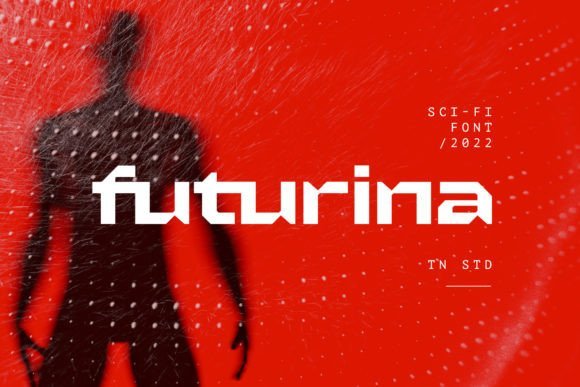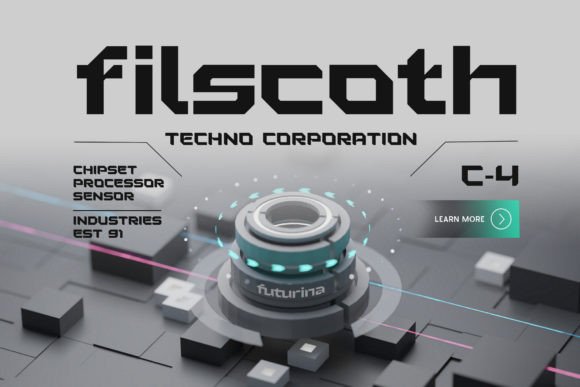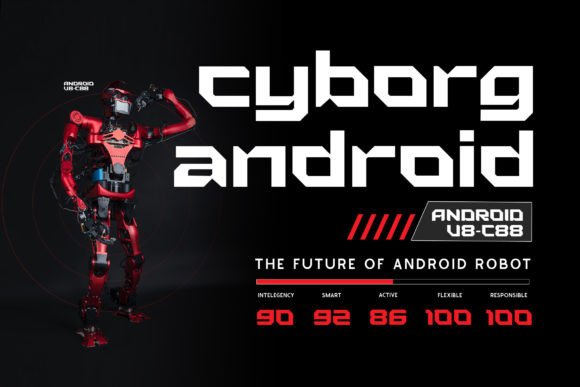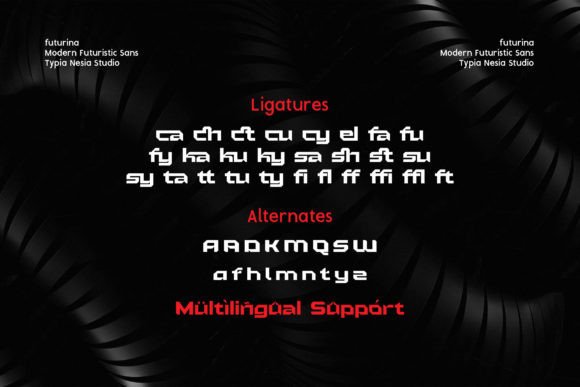
Unlocking the Future of Design with Futurina Font
Have you ever stared at a blank page, surrounded by a sea of possibilities, and thought, “This is the moment where creativity takes over and something truly amazing is born?” That’s exactly what happened to us when we first laid eyes on the Futurina Font. Its bold, black display sans serif design is a perfect blend of futuristic and sci-fi elements, making it the ultimate game-changer for designers.
Designed to take your projects to the next level, the Futurina Font is a versatile tool that can be used for everything from logo branding to editorial design, export design, and even 80s retro design. Whether you’re working on a game, creating a music poster, or designing a website, this font is sure to elevate your work and leave a lasting impression.
What sets the Futurina Font apart is its ability to add a touch of modernity and sophistication to any design. With its wide range of applications, it’s no wonder why designers are flocking to this font to give their projects a unique edge.
Futurina Font Key Features
- Font Size and Style: Futurina Font comes in 5 different weights (Thin, Light, Regular, Medium, and Bold) and 2 styles (Regular and Italic), providing ample options for designers to achieve the desired visual effect.
- Unique Characteristics: Futurina Font features a futuristic and sleek design, with a focus on clean lines, geometric shapes, and a sense of dynamism, making it ideal for science fiction, technology, and futuristic-themed projects.
Futurina Font Review
Futurina is a futuristic sans-serif font that’s sure to catch attention. I love the clean lines and geometric shapes that give it a truly space-age feel. ✨ The font is highly legible, making it perfect for digital applications and interfaces.
Here are some specific features that I think work well:
- Wide range of weights and styles, from thin to bold
- Excellent readability on screens and paper
- Customizable and highly versatile
- Looks great in both headline and body text
- Some characters may not render correctly on older systems or devices
- Lack of contextual alternates and swashes
- May not be suitable for traditional or serif-based designs
Overall, I think Futurina is a solid choice for designers looking for a modern and futuristic font. While it may not be perfect, its strengths far outweigh its weaknesses. With a little careful selection and use, Futurina can add a touch of cutting-edge style to any design project. ⚠️ Just be aware of its limitations, and you’ll be off to a great start.
Tips for Getting the Most Out of Futurina Font
To get the most out of the Futurina font, use it in combination with bold or italic styles to add emphasis and visual interest. You can also use Futurina to create a futuristic or retro-futuristic look by pairing it with other fonts that have a similar aesthetic.
The Futurina font is ideal for use in sci-fi and futuristic-themed designs, such as movie posters, video game titles, and space-themed graphics. It’s also a great choice for use in retro-futuristic designs, such as vintage sci-fi posters and futuristic cityscapes.